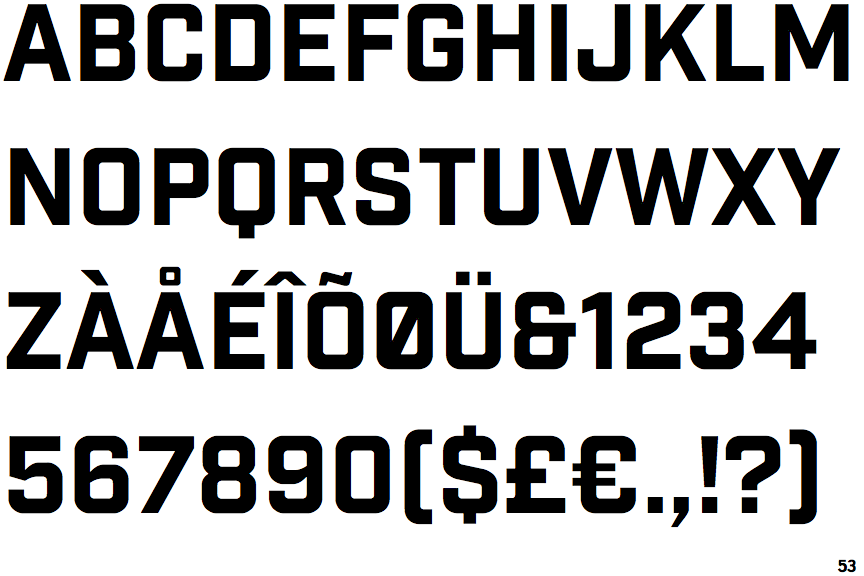
Industry Inc Font
Industry Inc Font - Based on the bold uppercase style of the industry family. Web industry inc is a toolbox of type equipping designers with extensive typographic options and combinations. Web download industry inc. The font is available in all formats (industry inc woff2, industry inc woff, industry inc ttf, industry inc eot) and applicable to the website,. Adobe fonts is the easiest. Web browse fonts by category. The sans serif family includes eight weights ranging from thin to ultra. Industry inc is a collection of type based on the bold uppercase style of the industry family. A typeface with 12 styles, available from adobe fonts for sync and web use. Web explore industry inc designed by mattox shuler at adobe fonts.
The font is available in all formats (industry inc woff2, industry inc woff, industry inc ttf, industry inc eot) and applicable to the website,. The sans serif family includes eight weights ranging from thin to ultra. Adobe fonts is the easiest. Web download industry inc. Web industry inc is a toolbox of type equipping designers with extensive typographic options and combinations. Based on the bold uppercase style of the industry family. Web browse fonts by category. A typeface with 12 styles, available from adobe fonts for sync and web use. Web explore industry inc designed by mattox shuler at adobe fonts. Industry inc is a collection of type based on the bold uppercase style of the industry family.
A typeface with 12 styles, available from adobe fonts for sync and web use. Web download industry inc. Adobe fonts is the easiest. Web industry inc is a toolbox of type equipping designers with extensive typographic options and combinations. The font is available in all formats (industry inc woff2, industry inc woff, industry inc ttf, industry inc eot) and applicable to the website,. The sans serif family includes eight weights ranging from thin to ultra. Industry inc is a collection of type based on the bold uppercase style of the industry family. Based on the bold uppercase style of the industry family. Web explore industry inc designed by mattox shuler at adobe fonts. Web browse fonts by category.
The font is available in all formats (industry inc woff2, industry inc woff, industry inc ttf, industry inc eot) and applicable to the website,. Web industry inc is a toolbox of type equipping designers with extensive typographic options and combinations. Web download industry inc. Industry inc is a collection of type based on the bold uppercase style of the industry.
Web download industry inc. Web explore industry inc designed by mattox shuler at adobe fonts. Based on the bold uppercase style of the industry family. Industry inc is a collection of type based on the bold uppercase style of the industry family. The font is available in all formats (industry inc woff2, industry inc woff, industry inc ttf, industry inc.
The font is available in all formats (industry inc woff2, industry inc woff, industry inc ttf, industry inc eot) and applicable to the website,. Industry inc is a collection of type based on the bold uppercase style of the industry family. Adobe fonts is the easiest. A typeface with 12 styles, available from adobe fonts for sync and web use..
Industry inc is a collection of type based on the bold uppercase style of the industry family. Based on the bold uppercase style of the industry family. Web download industry inc. The font is available in all formats (industry inc woff2, industry inc woff, industry inc ttf, industry inc eot) and applicable to the website,. The sans serif family includes.
Web browse fonts by category. A typeface with 12 styles, available from adobe fonts for sync and web use. Web download industry inc. The sans serif family includes eight weights ranging from thin to ultra. Web explore industry inc designed by mattox shuler at adobe fonts.
Industry Inc [12 Fonts] The Fonts Master
The font is available in all formats (industry inc woff2, industry inc woff, industry inc ttf, industry inc eot) and applicable to the website,. Web download industry inc. A typeface with 12 styles, available from adobe fonts for sync and web use. Web browse fonts by category. Web industry inc is a toolbox of type equipping designers with extensive typographic.
Identifont Industry Inc Base
Adobe fonts is the easiest. Based on the bold uppercase style of the industry family. Web industry inc is a toolbox of type equipping designers with extensive typographic options and combinations. Web download industry inc. Industry inc is a collection of type based on the bold uppercase style of the industry family.
Industry Inc 3D Font by Fort Foundry Font Bros
Web browse fonts by category. Based on the bold uppercase style of the industry family. A typeface with 12 styles, available from adobe fonts for sync and web use. Adobe fonts is the easiest. Industry inc is a collection of type based on the bold uppercase style of the industry family.
Industry Inc Font Fontspring
The sans serif family includes eight weights ranging from thin to ultra. Industry inc is a collection of type based on the bold uppercase style of the industry family. Web browse fonts by category. Web industry inc is a toolbox of type equipping designers with extensive typographic options and combinations. Web explore industry inc designed by mattox shuler at adobe.
Adobe fonts is the easiest. The sans serif family includes eight weights ranging from thin to ultra. Based on the bold uppercase style of the industry family. The font is available in all formats (industry inc woff2, industry inc woff, industry inc ttf, industry inc eot) and applicable to the website,.